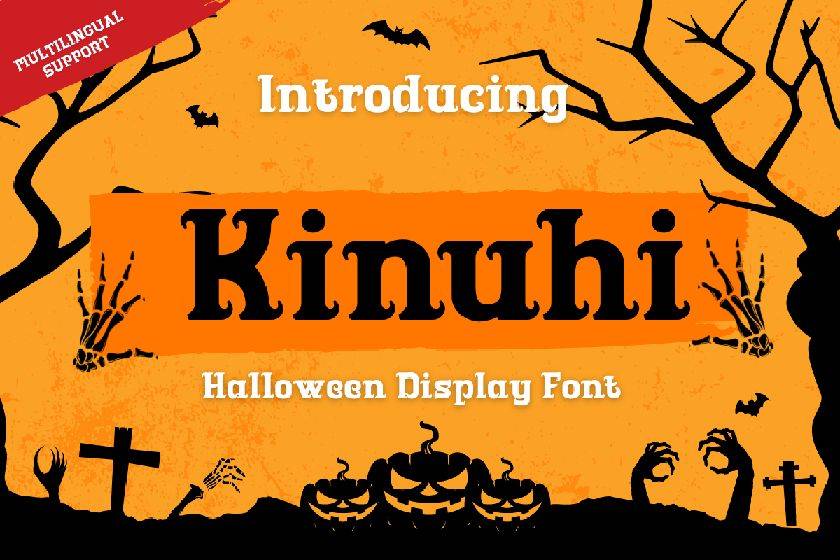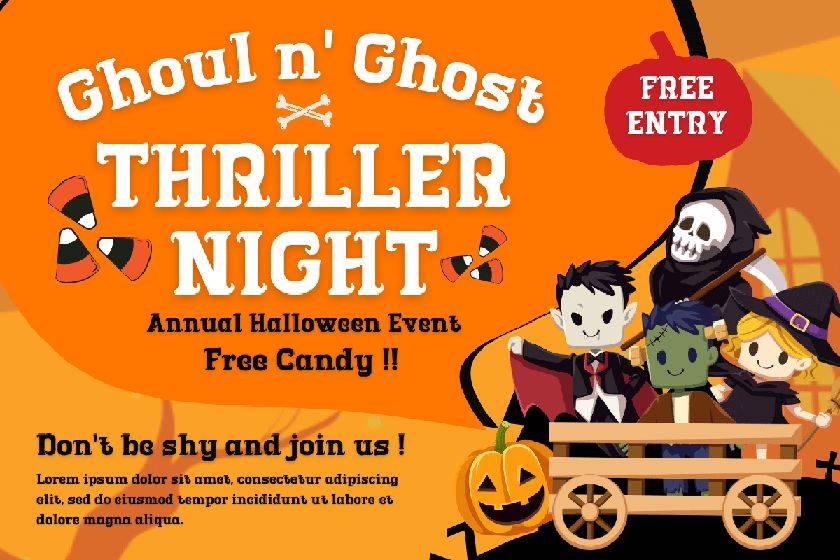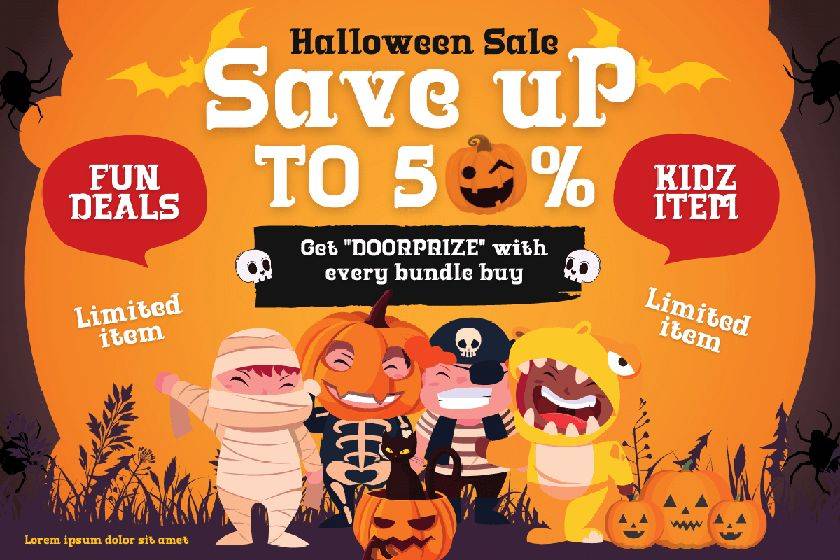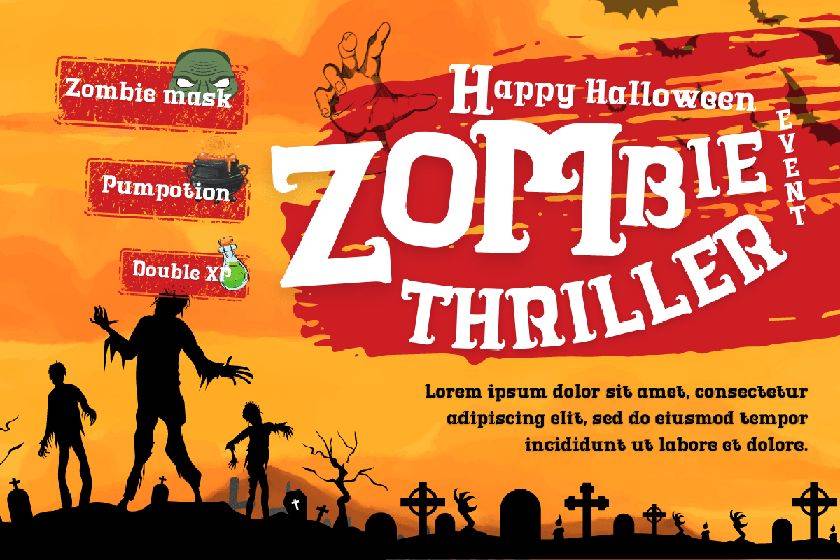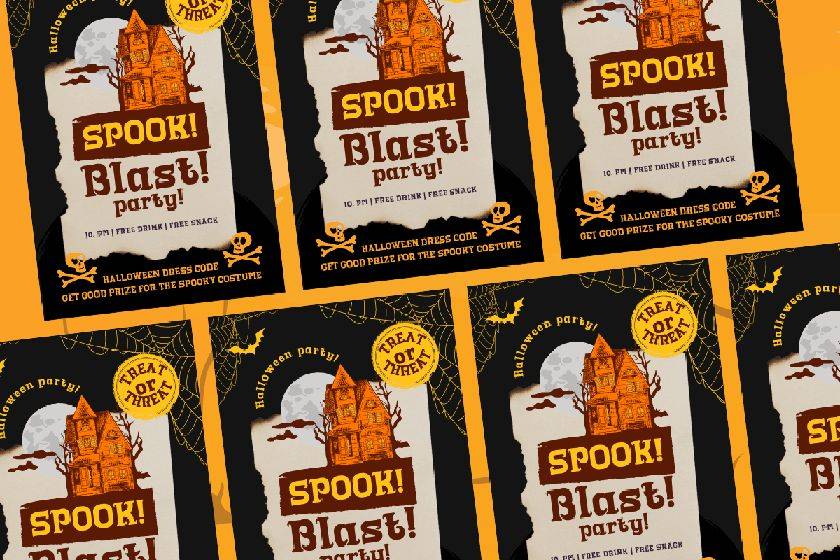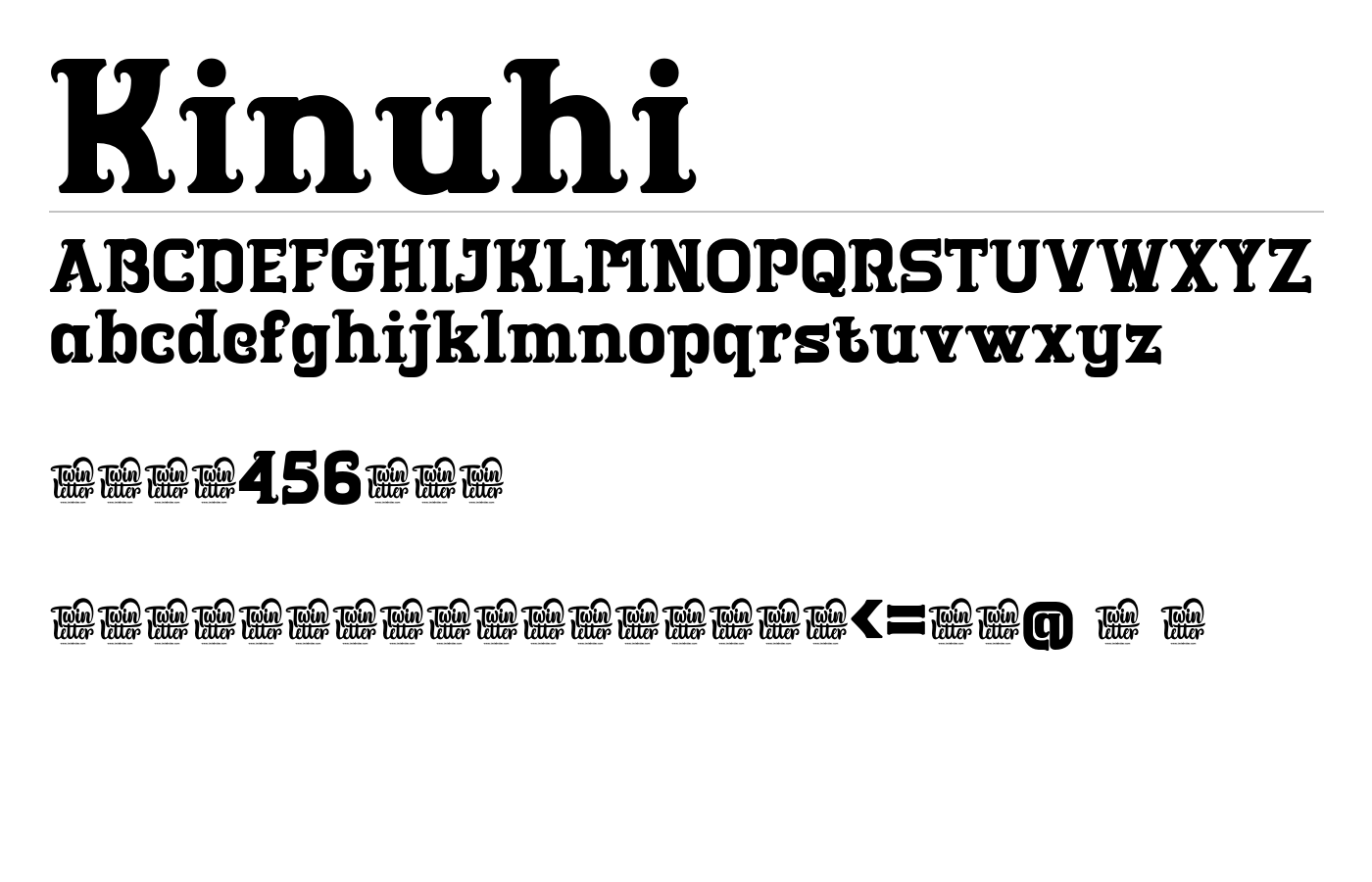
Kinuhi is a bold slab serif font with a strong, vintage character that combines thick, blocky serifs with playful curves and unique letterforms. Its high contrast and sturdy presence make it perfect for creating eye-catching headlines, logos, and branding that require a touch of retro charm and personality. This font works well in designs that want to convey reliability with a hint of creativity, ideal for packaging, posters, and editorial projects.
Kinuhi Font
About Kinuhi Font